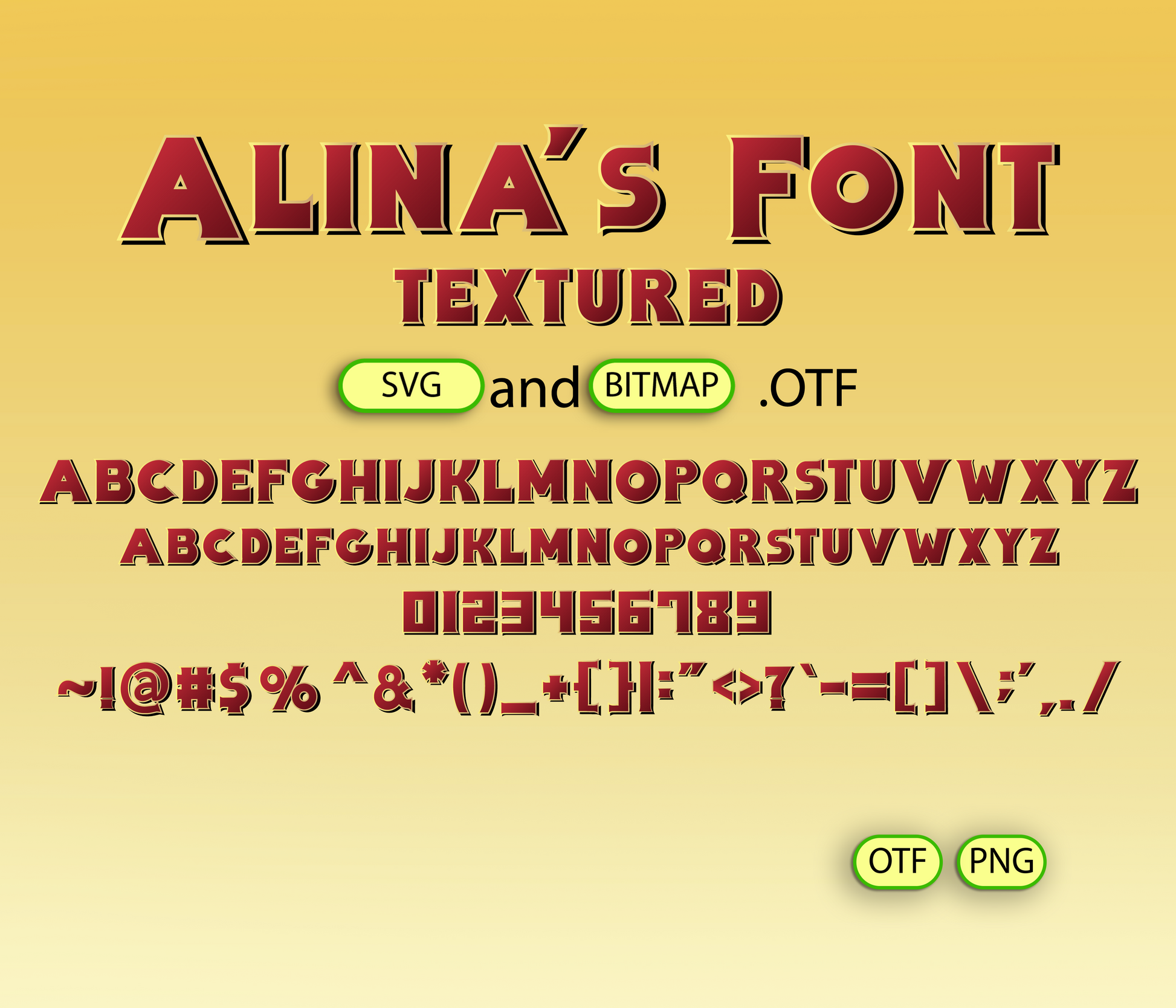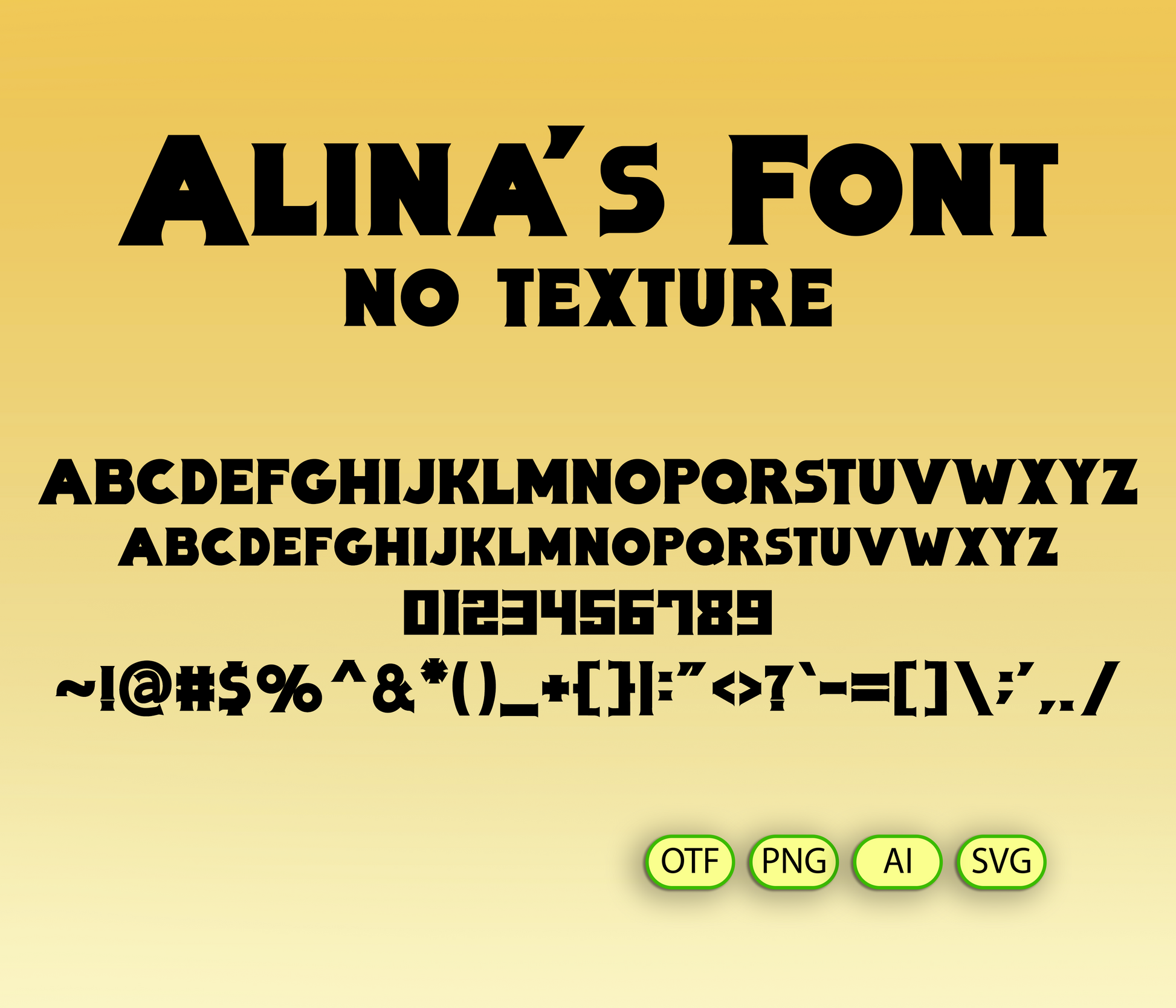
Iconic Chocolate Font Textured
Rich Legacy Font: Inspired by Iconic Chocolate
Immerse yourself in the world of Swiss chocolate with our Rich Legacy font. This font captures the elegance and boldness of an iconic brand, perfect for projects that evoke luxury and quality.
What Can You Do With Rich Legacy Font?
The Rich Legacy font is versatile for:
- Branding and Packaging: Upscale packaging and branding.
- Marketing Campaigns: Quality and luxury promotional content.
- Event Decorations: Elegant decorations for culinary events.
- Digital Content: Sophisticated typography for websites and social media.
- Retail Displays: Eye-catching displays and signage.
- Editorial Design: Magazines, brochures, and elegant publications.
- Custom Apparel: Clothing and accessories for brand enthusiasts.
- Stationery and Business Cards: Sleek, professional designs.
- Menu Design: Ideal for cafes and restaurants.
- Creative Projects: Refined art projects and crafts.
- Variants: Textured and non-textured.
- Comprehensive Character Set: Wide range of characters.
The Rich Legacy font embodies the luxury and quality of a world-famous chocolate brand.